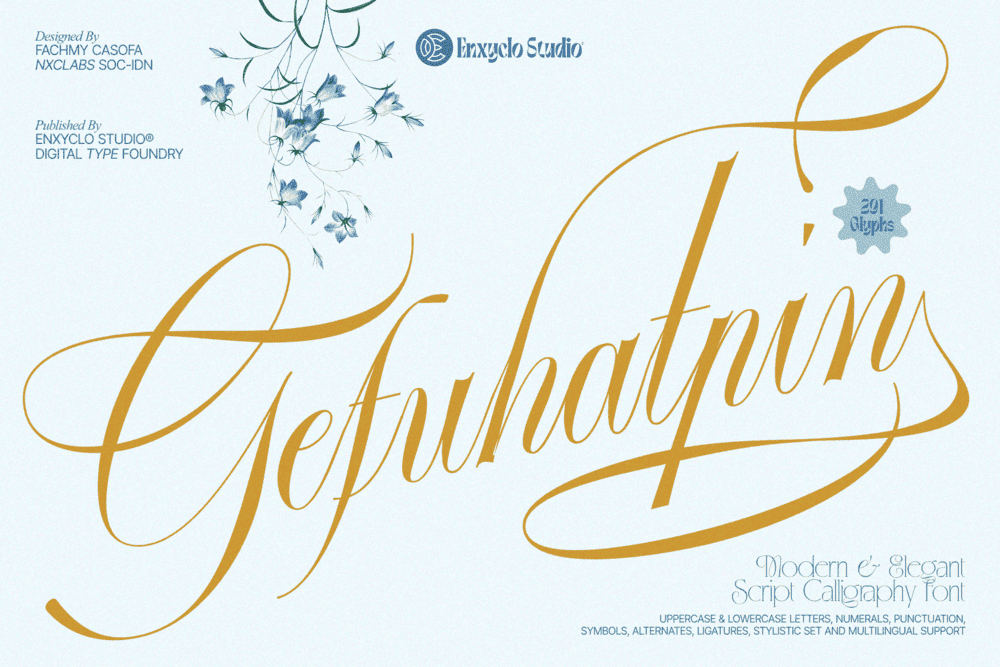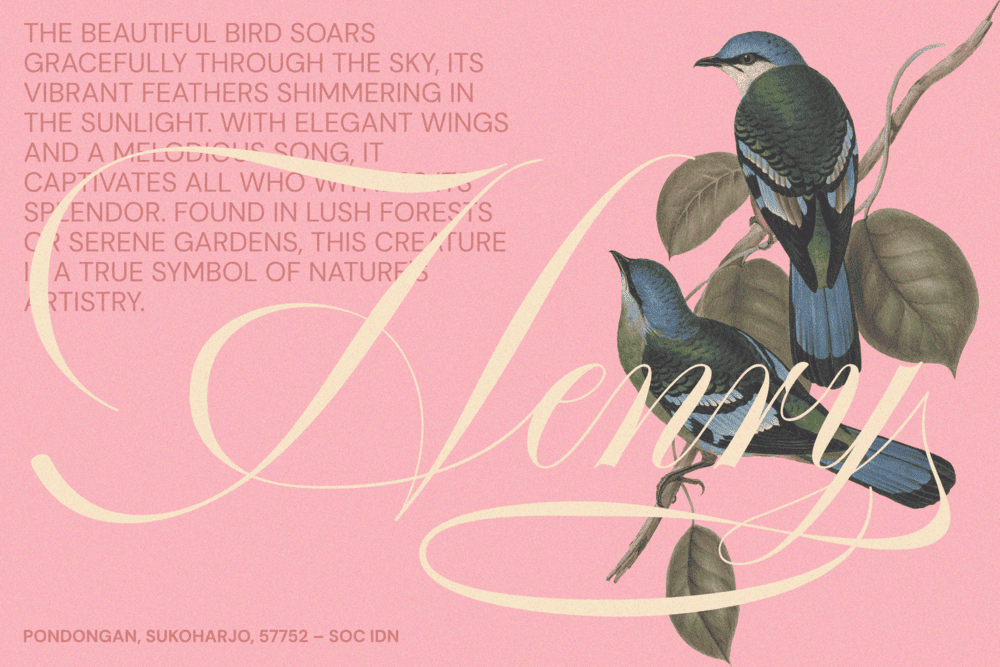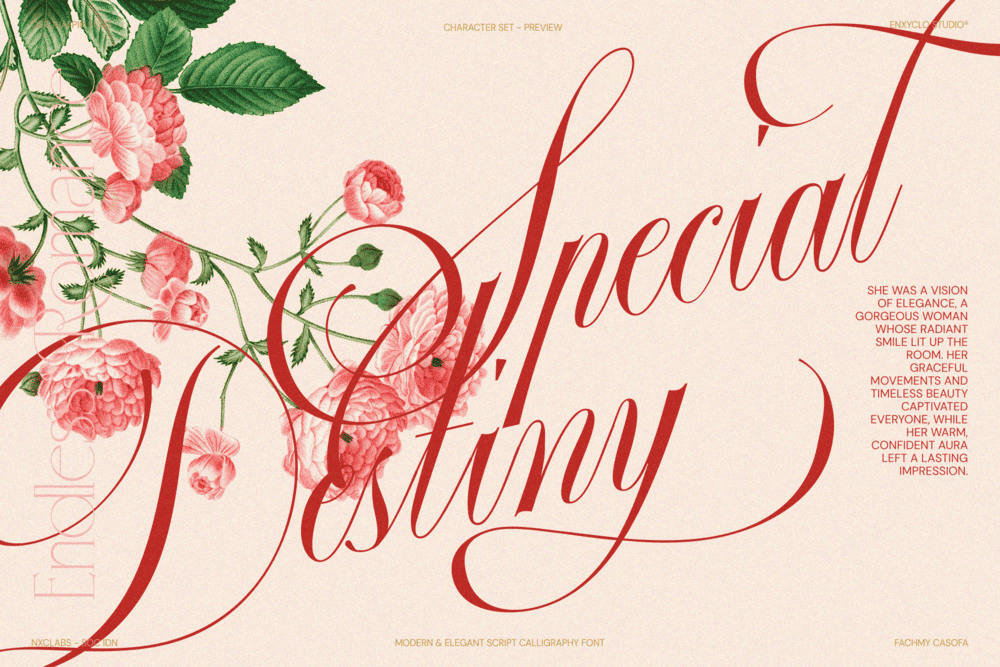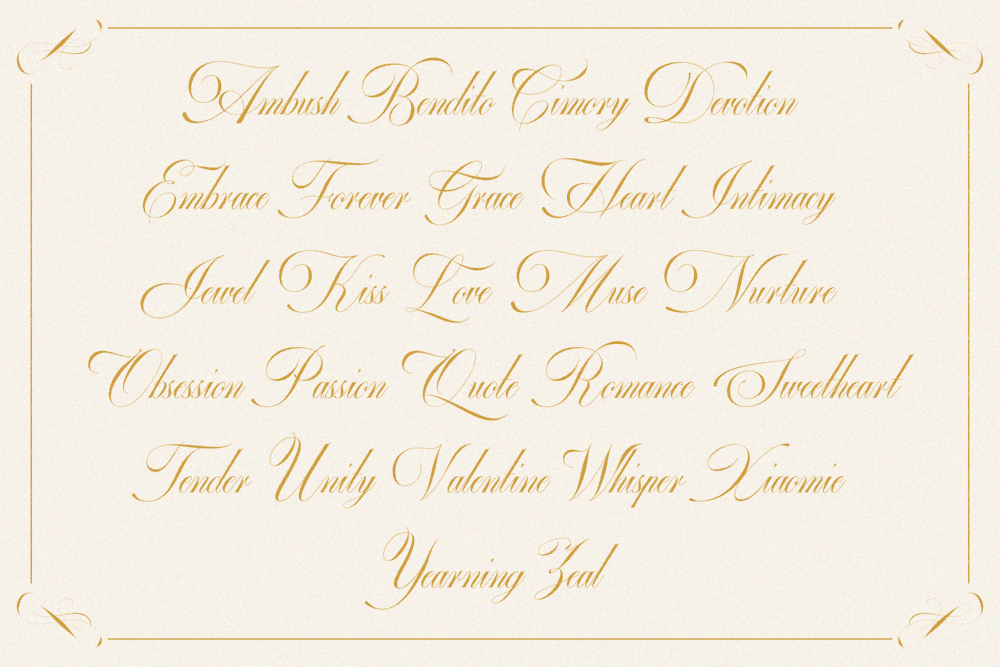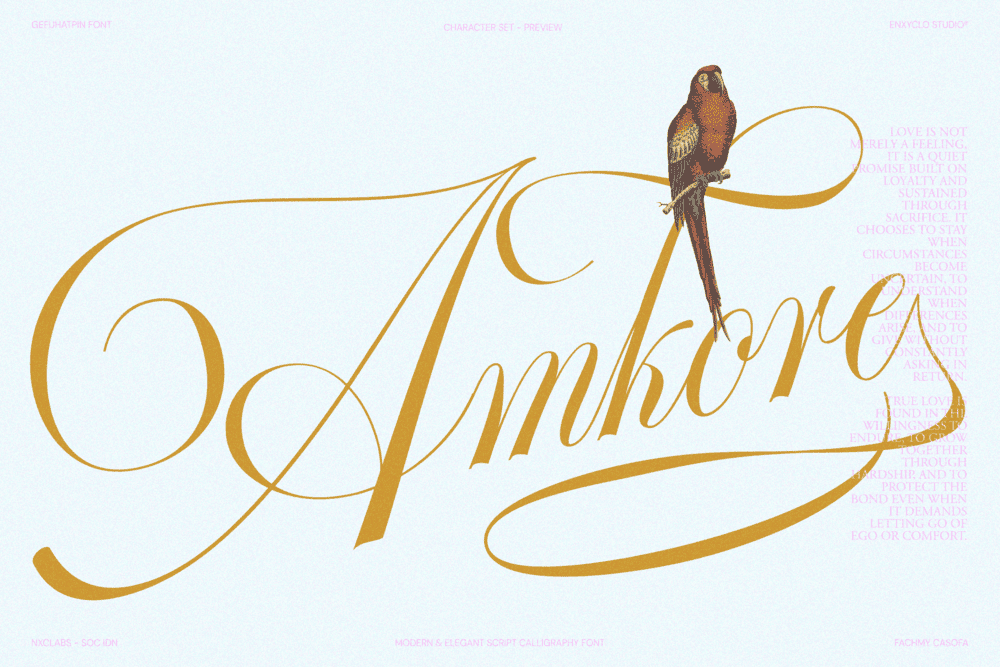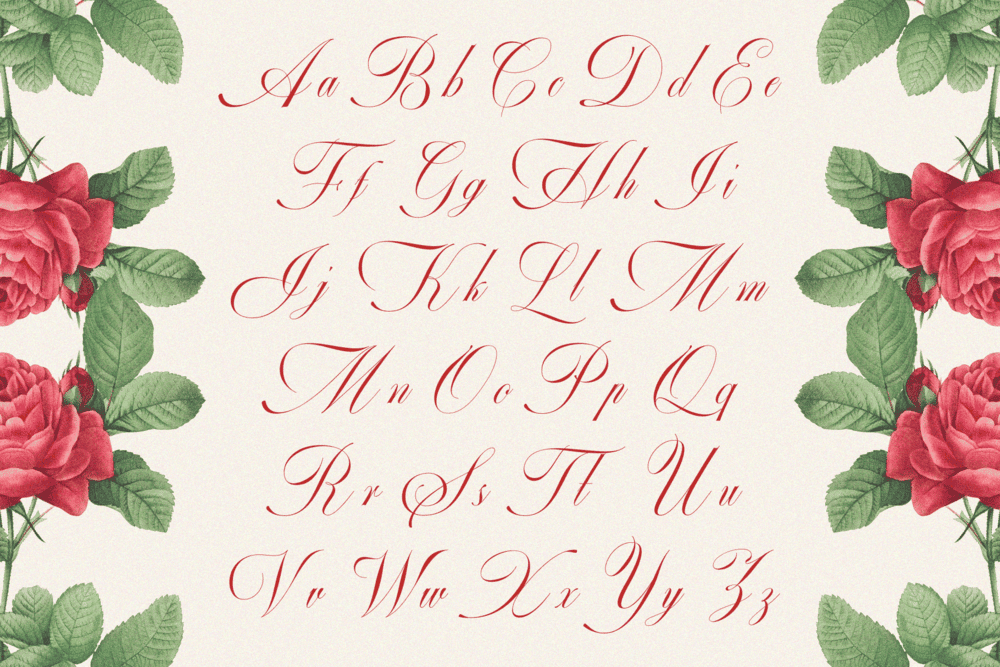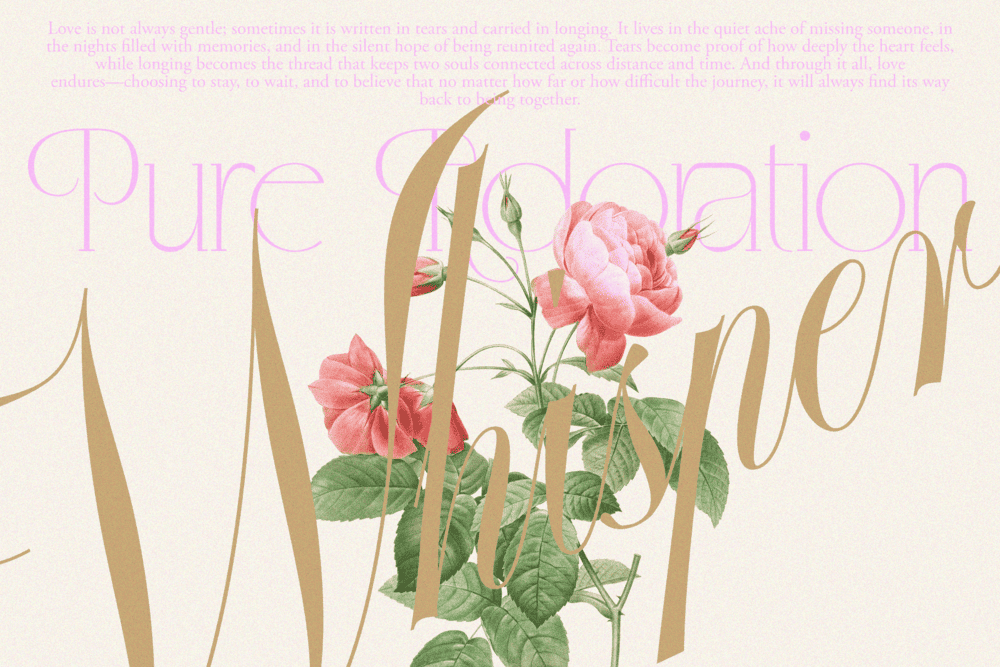
GEFUHATPIN is a timeless modern script calligraphy font crafted to express the true essence of luxury, elegance, and sophisticated beauty. With its flowing curves, graceful strokes, and refined rhythm, this typeface delivers a lavish and premium aesthetic designed for brands that want to feel rich, glamorous, and unforgettable.
Blending modern calligraphy with a luxurious visual style, GEFUHATPIN creates a perfect harmony between bold presence and delicate elegance. Every letterform is carefully designed to elevate your logo, brand identity, fashion campaign, or boutique packaging with a sense of exclusivity and artistic refinement. Its smooth script flow and stylish character make it ideal for creating an aesthetic visual experience that feels both contemporary and timeless.
Inspired by the world of fashion, beauty, skincare, and cosmetic branding, GEFUHATPIN adds a touch of glamour and sophistication to every design. Whether used for premium logos, elegant product packaging, or high-end editorial layouts, this script font transforms simple typography into a luxurious statement filled with personality and charm.
Designed for creatives who value beauty and branding excellence, GEFUHATPIN is more than just a script font, it is a visual signature of modern luxury, graceful storytelling, and premium design aesthetics.
• Uppercase & Lowercase Letters
• Numeral, Punctuation Marks, Currencies & Symbol Set
• Alternate, Stylistic Set & Ligature
PERFECT FOR
• Luxury Logo & Branding
• Fashion & Boutique Identity
• Beauty, Cosmetic & Skincare Packaging
• Elegant Wedding Invitations
• Premium Editorial & Magazine Design
• Glamour Social Media Visuals
• Signature Logos & Personal Branding
• High-End Product Labels
• Aesthetic Advertising Campaigns
• Luxury Event & Stationery Design